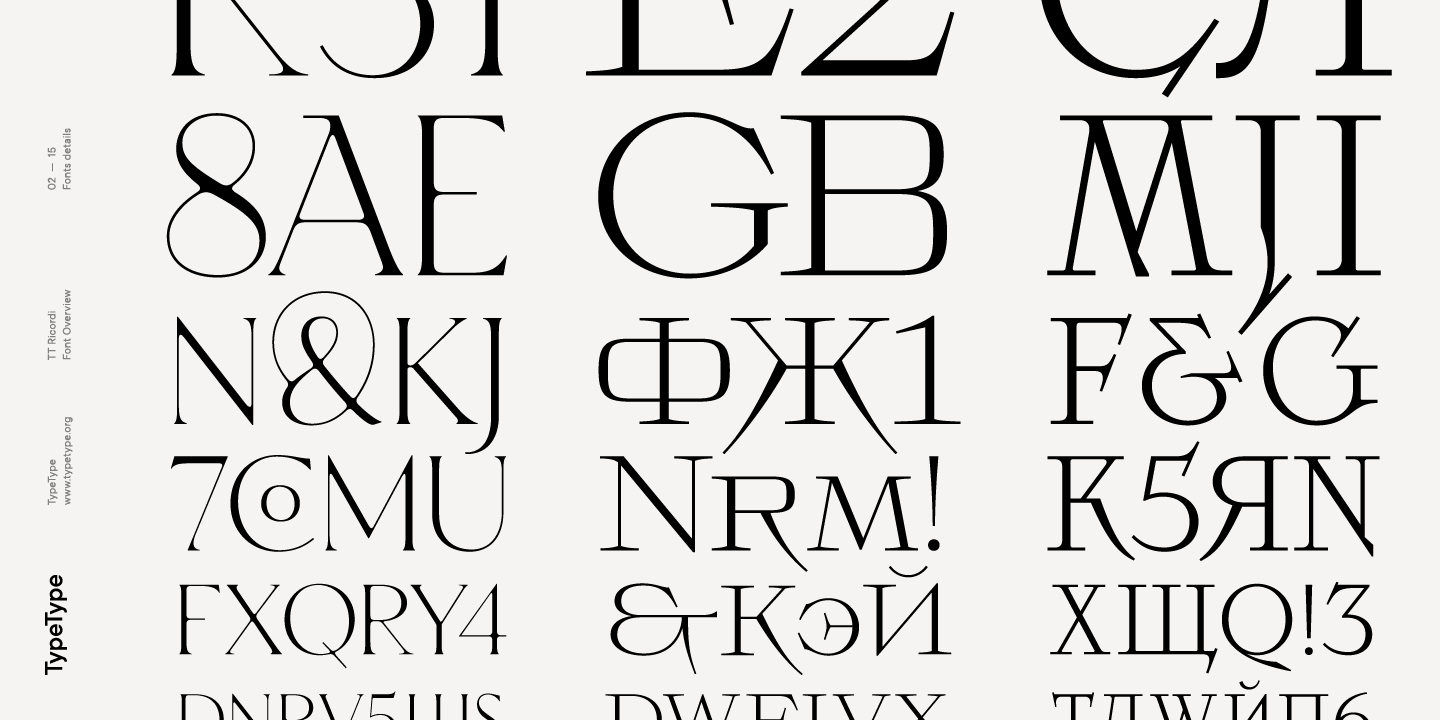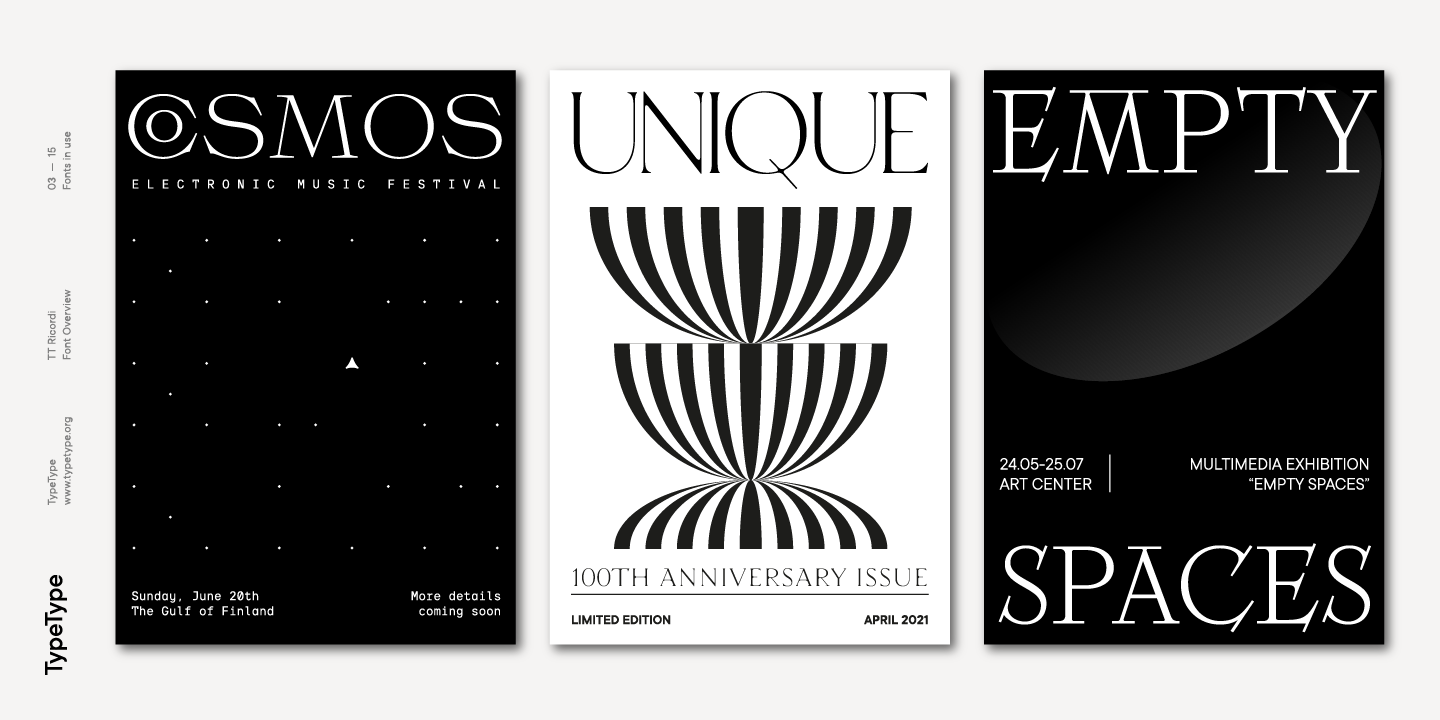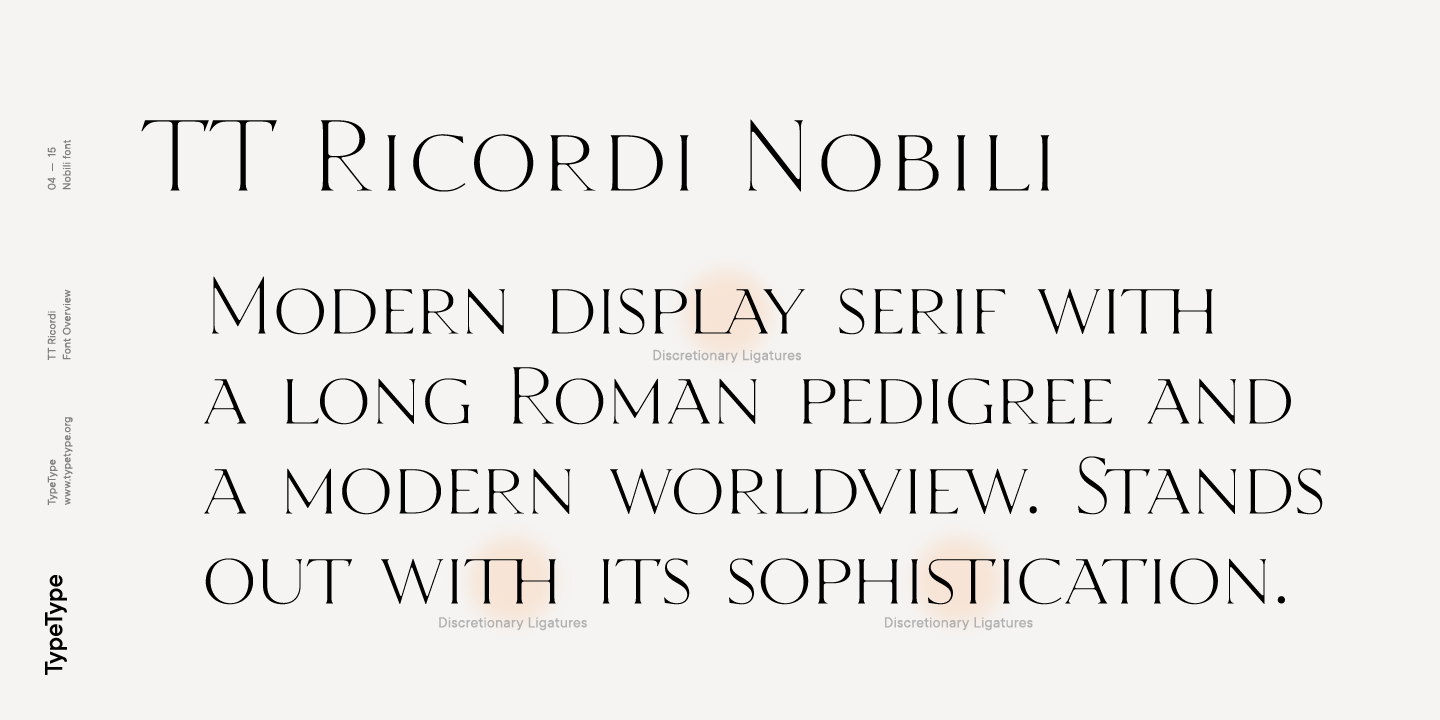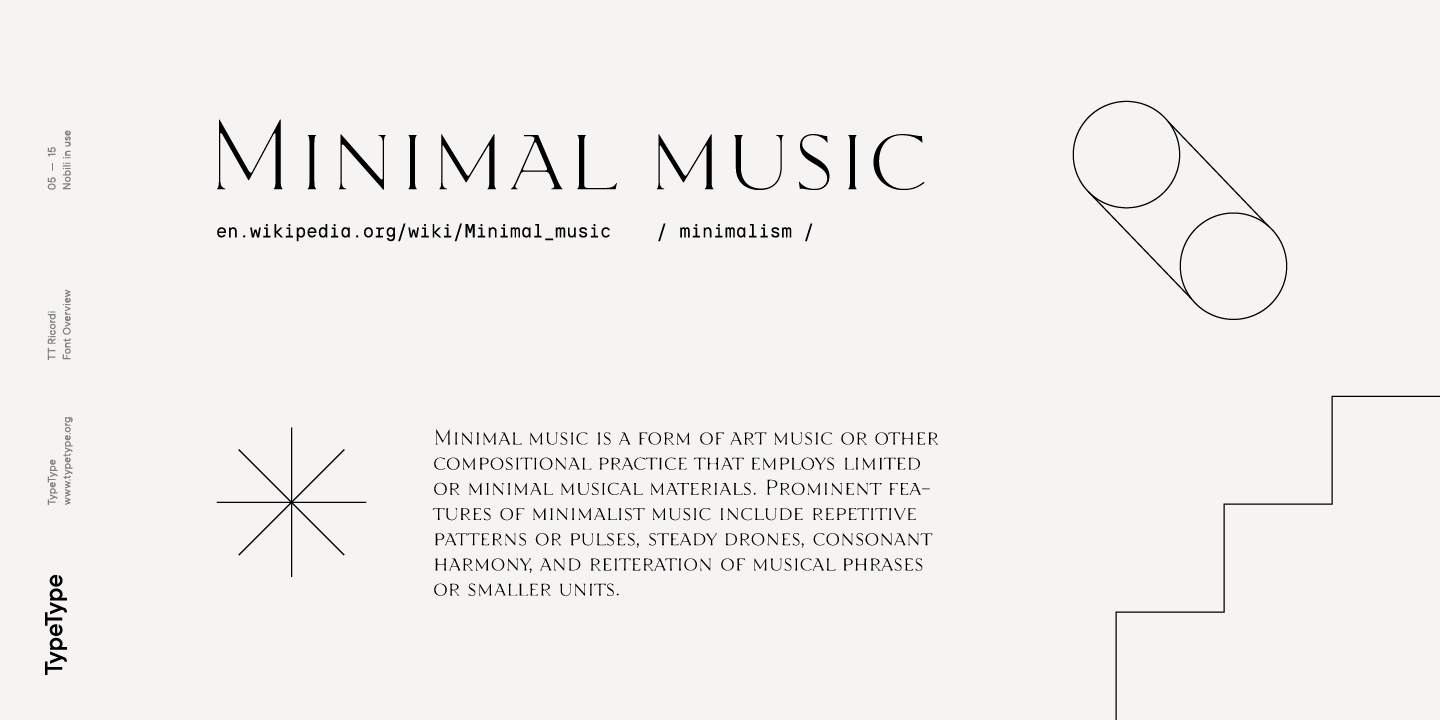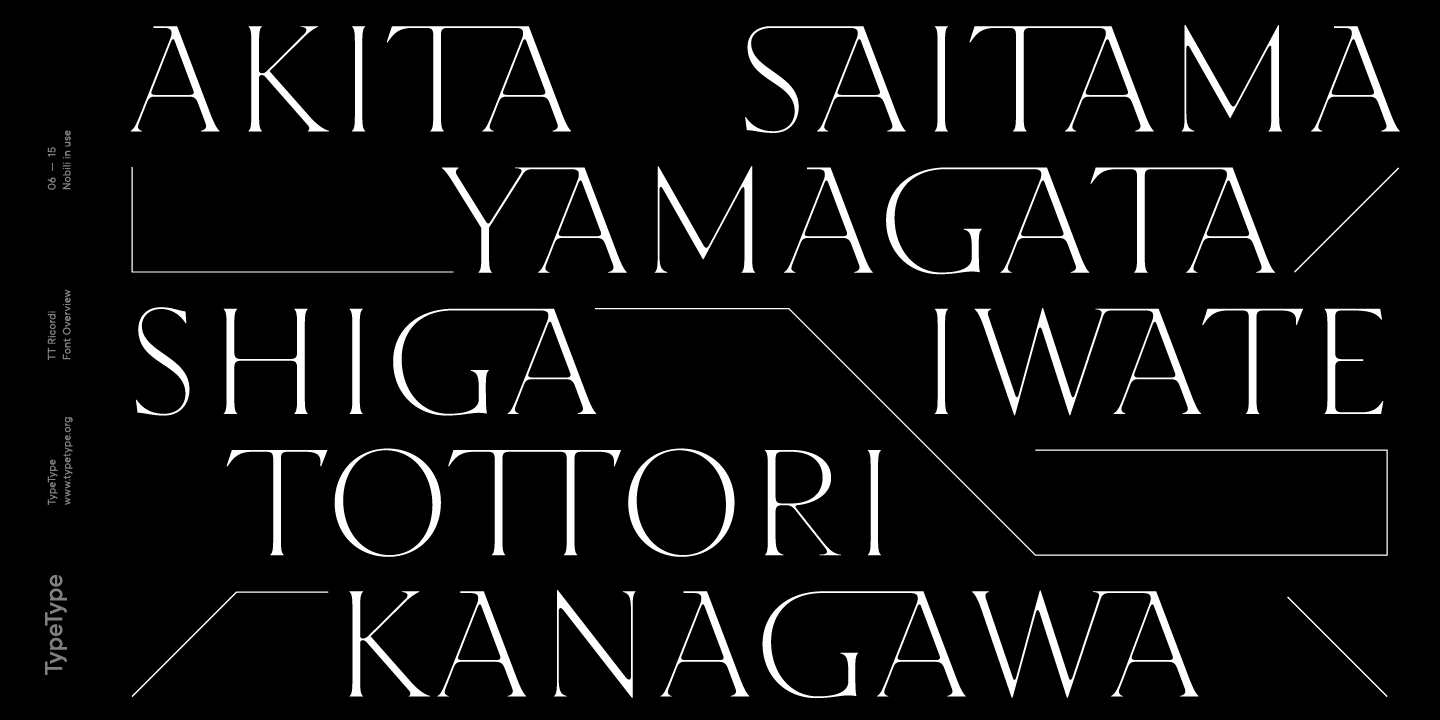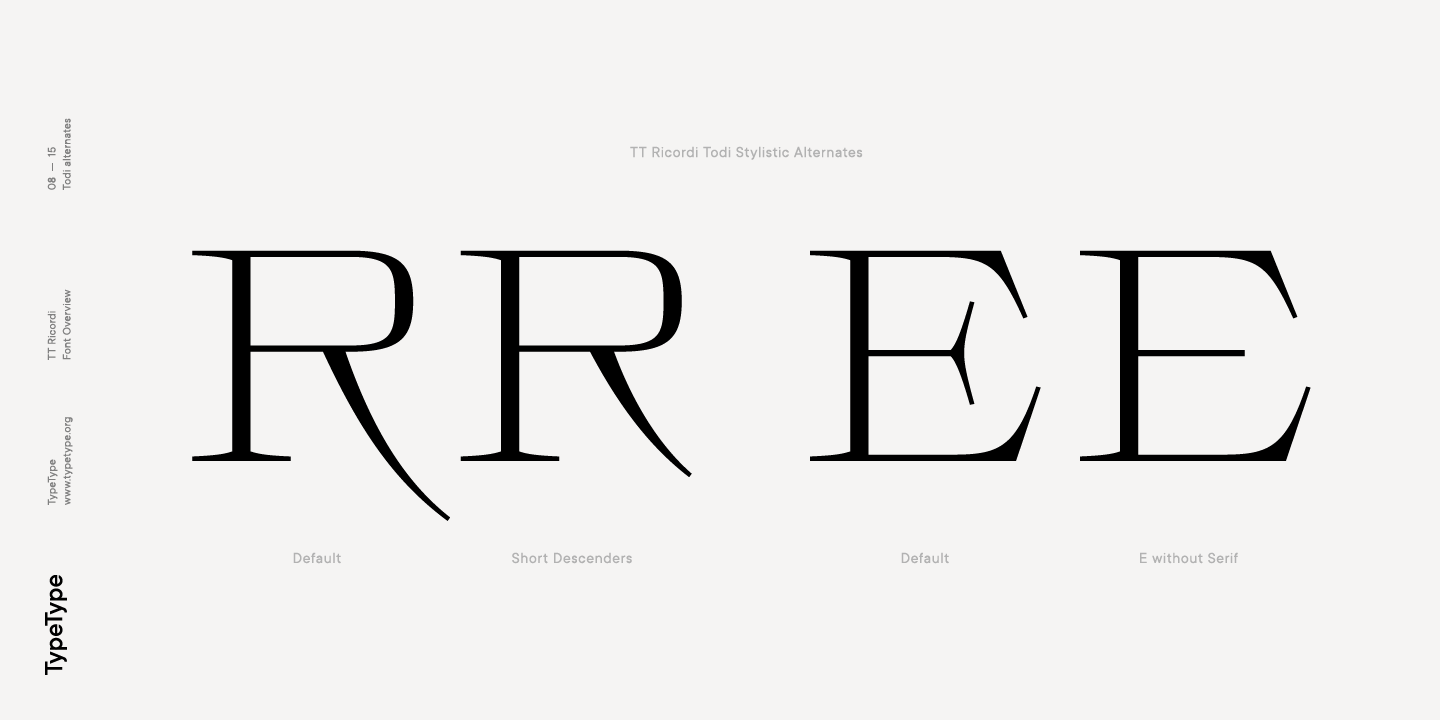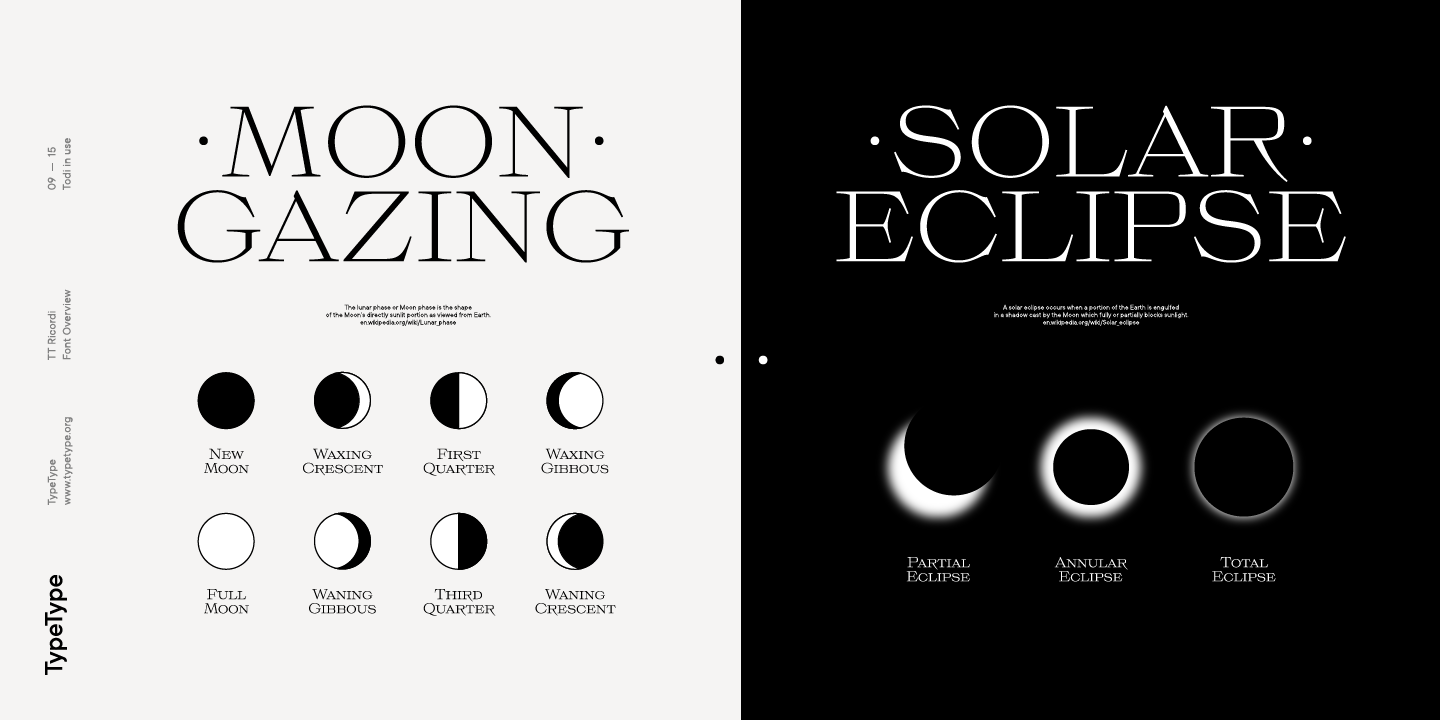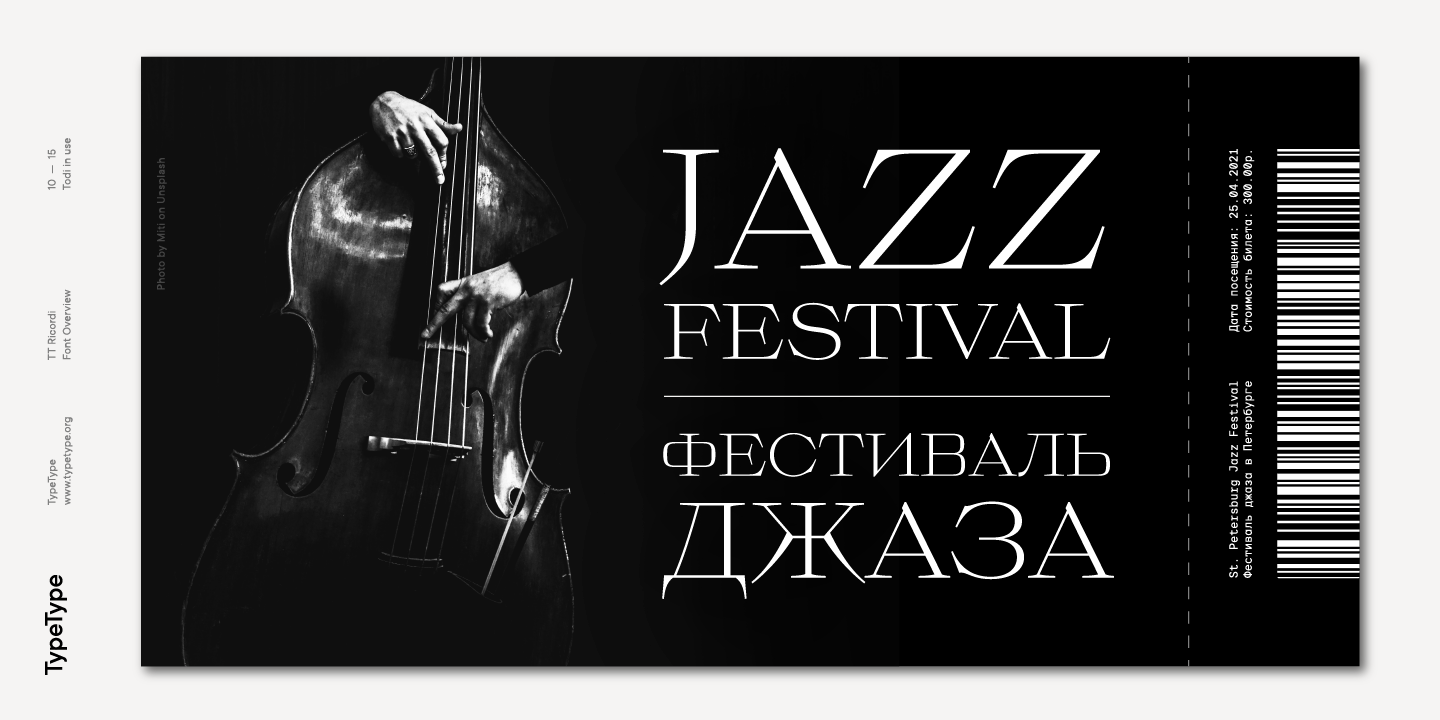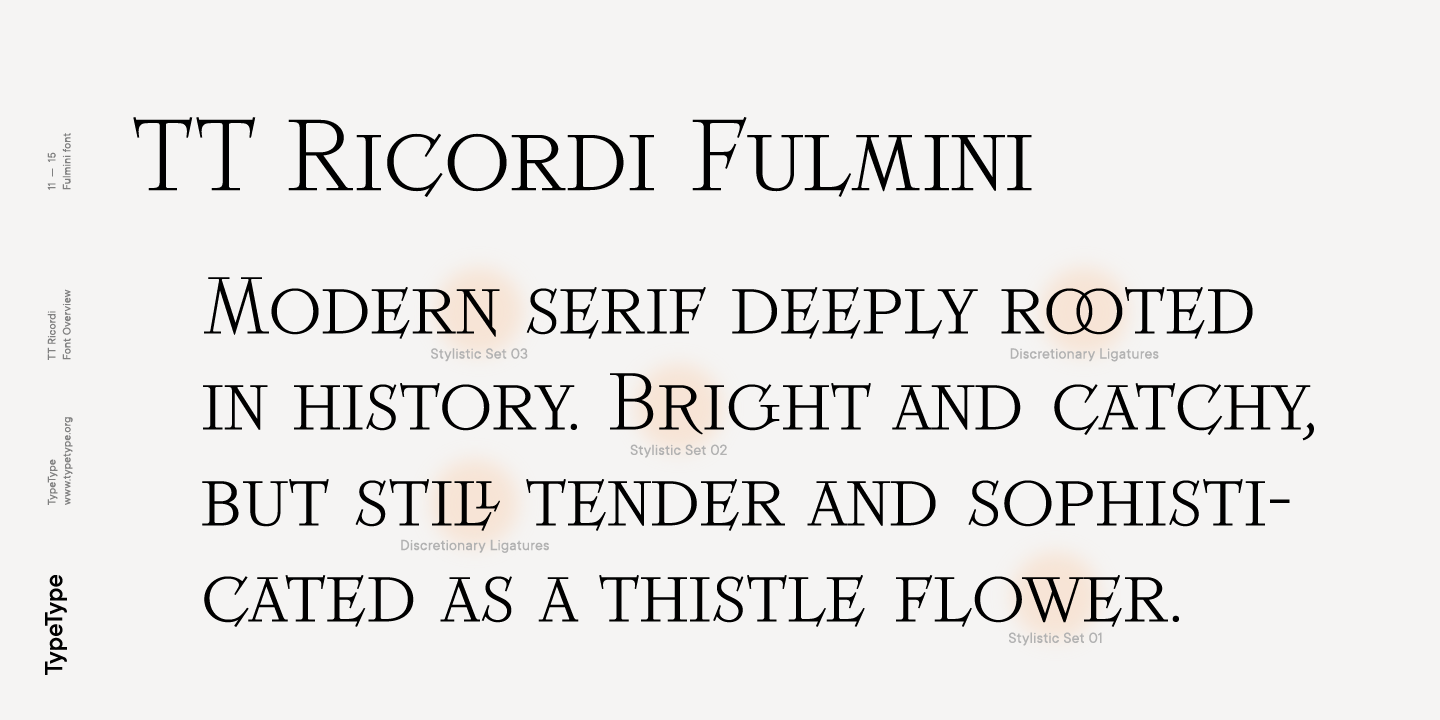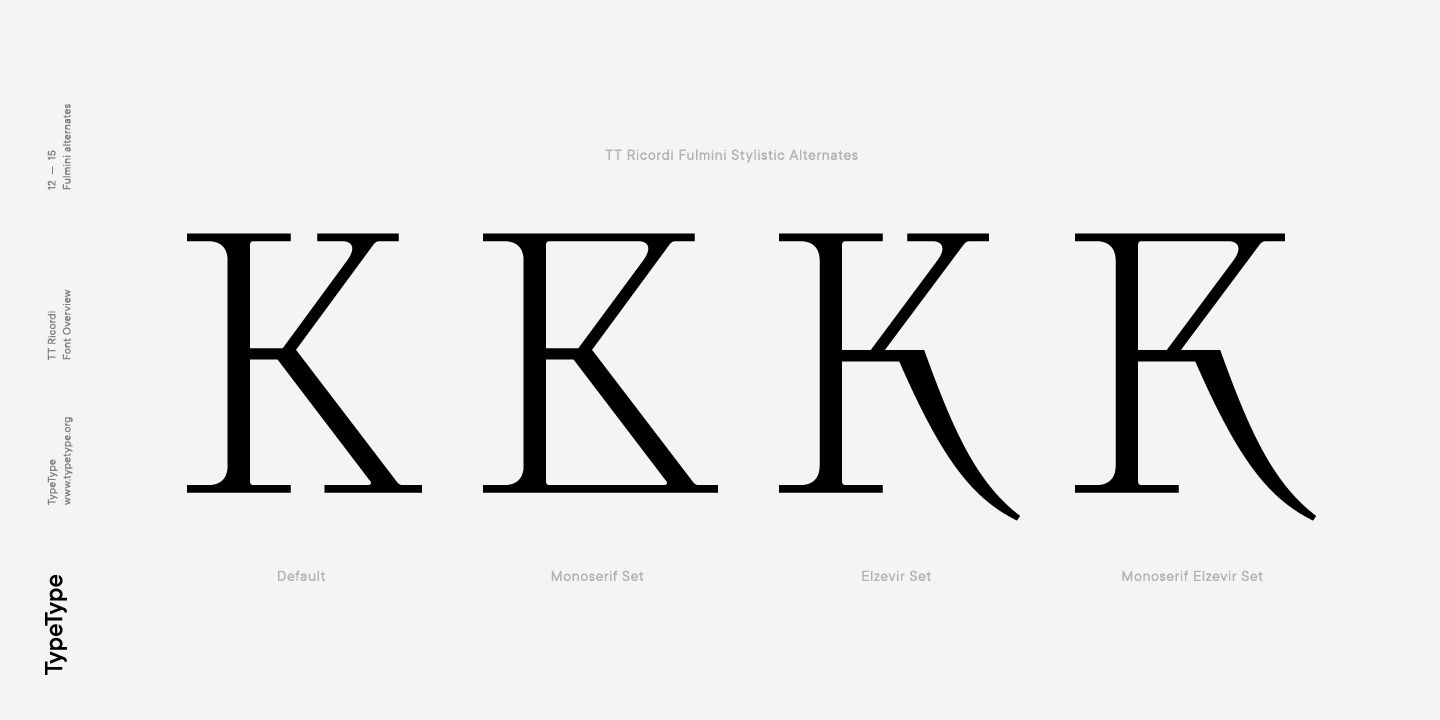
TT Ricordi
TT Ricordi is a collection of three display heading serifs, each with distinct personalities. It offers varied solutions for sophisticated editorial design.
The TT Ricordi font family is a collection of three display heading serifs designed to significantly diversify the traditional font palette. Each font from the TT Ricordi family was drawn by a separate designer and has its own story.
The fonts from the TT Ricordi typeface turned out to be quite display and contemporary, but at the same time, they retained subtle references to historic inscriptions. The fonts fit perfectly both on the covers of book classics and in glossy magazine layouts.
About font family TT Ricordi
The TT Ricordi font family is a collection of three display heading serifs designed to significantly diversify the traditional font palette. Each font from the TT Ricordi family was drawn by a separate designer and has its own story. With that, all three fonts are close in thickness and similar in their character compositions and are featured in the uppercase set and the small capitals set, which replaces lowercase characters. The fonts have the broad support of Latin languages and support basic Cyrillic.
The project originates from the pre-coronavirus tourist trips to Italy, during which our art director Yulia Gonina has accumulated many photographs of historical inscriptions and tablets. Many of these inscriptions had interesting character or unusual character shapes. We wanted to work with them, to try to reinterpret them, and, if possible, make them ultramodern and accessible to the modern font user.
The fonts from the TT Ricordi typeface turned out to be quite display and contemporary, but at the same time, they retained subtle references to historic inscriptions. The fonts fit perfectly both on the covers of book classics and in glossy magazine layouts. They can also be used in posters and packaging, or as the main expressive element of company branding. In addition, all three serifs from the TT Ricordi font family go well with functional sans-serifs such as TT Norms Pro or TT Commons.
TT Ricordi Todi is a wide serif with a classic base and a contemporary nature. The font turned out to be refined yet sharp, and in places even pushy and aggressive. The font was drawn by Yulia Gonina, and the project was based on plaques with engraved street names from the small Italian town of Todi. The main challenge was to decipher the characteristic features of the signs and emphasize them in a modern way. In addition, it was necessary to draw a Cyrillic alphabet that would not be inferior to the Latin alphabet in its expressiveness.
The TT Ricordi Todi has fairly wide character proportions, and there is practically no contrast in them. The main feature of the font is the combination of smooth round shapes with deliberately squared shapes. In addition, the font is characterized by crisp and sharp character details, exaggerated ascenders and descenders, and muted contrast. Among the interesting font peculiarities, you can choose between the characteristic long descenders and ascenders and their more tempered versions, you can find a stylistic set with triangular dots, alternative versions of the EF characters and two letter Ф shapes, round and squared. There are 876 glyphs in the TT Ricordi Todi font, and a whole set of useful features, such as: aalt, ccmp, locl, numr, ordn, tnum, pnum, case, dlig, salt, ss01, ss02, ss03, ss04, ss05, ss06, ss07, ss08, ss09, ss10, calt.
TT Ricordi Fulmini is a fashionable contemporary serif firmly holding on to its historic roots. The font turned out to be like a thistle flower: bright and catchy, but still subtle and delicate. TT Ricordi Fulmini was drawn by Marina Khodak, and the initial inspiration for the project was the inscription on the altar from the National Gallery of Umbria in Perugia. As the font was pulled into «contemporaneity», it was completely transformed and revealed its new side.